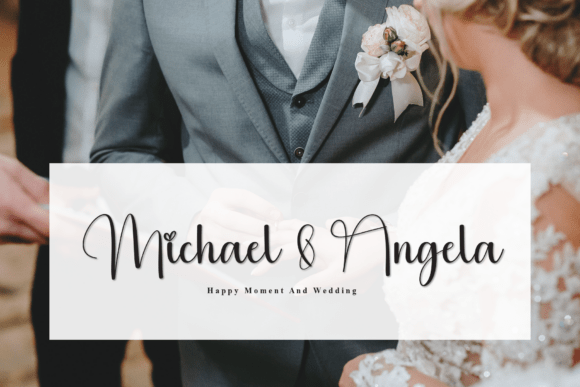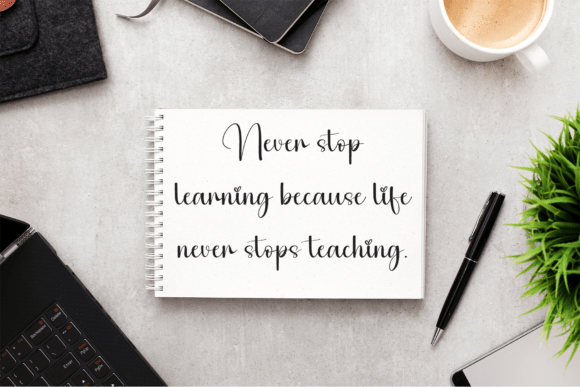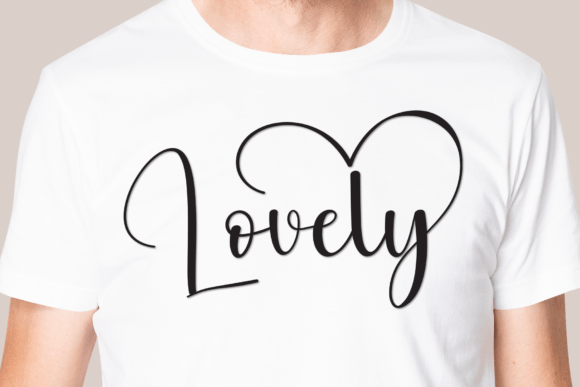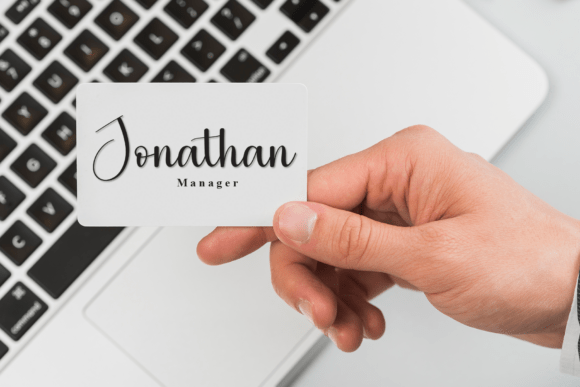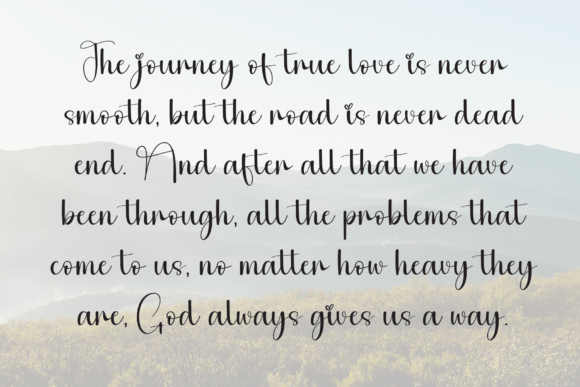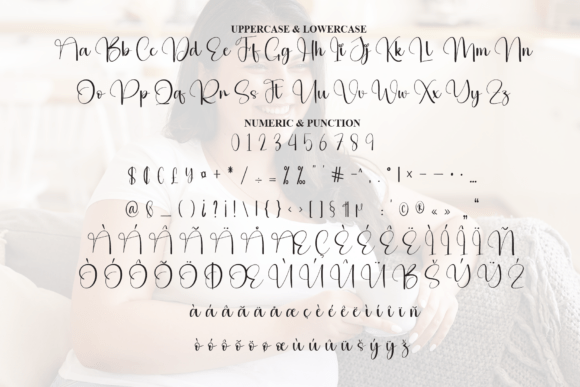
Introducing Chubby Font: The Sweet and Playful Script Font for Body Positivity and More
Are you tired of using the same old fonts for your designs and crafts? Look no further than Chubby Font, a sweet and playful script font that’s sure to add a touch of warmth and charm to any project. With its heart-shaped swashes and bubbly curves, Chubby Font is the perfect choice for body positivity messaging, love notes, greeting cards, and cozy branding.
What Makes Chubby Font So Special?
Chubby Font is more than just a font – it’s a statement. Its unique design features heart-shaped swashes and bubbly curves that give it a playful and whimsical feel. This font is all about embracing body positivity and self-love, making it the perfect choice for designers and crafters who want to spread a message of acceptance and inclusivity.
Perfect for Body Positivity Messaging
Body positivity is all about embracing and loving your body, regardless of shape or size. Chubby Font is the perfect way to express this message in your designs and crafts. Whether you’re creating posters, social media graphics, or merchandise, Chubby Font adds a touch of warmth and charm that’s sure to resonate with your audience.
With Chubby Font, you can create designs that are not only visually appealing but also empowering and uplifting. Imagine creating a poster with a bold, Chubby Font headline that reads “All Bodies Are Beautiful” or a social media graphic with a Chubby Font caption that says “Love Yourself Just the Way You Are”. The possibilities are endless, and the impact is sure to be profound.
Ideal for Love Notes, Greeting Cards, and Cozy Branding
But Chubby Font isn’t just limited to body positivity messaging. Its playful and whimsical design makes it perfect for a wide range of applications, including love notes, greeting cards, and cozy branding.
Imagine creating a set of love note cards with Chubby Font headings that read “Be Mine” or “I Love You”. Or, picture a cozy branding campaign for a bakery or cafe that features Chubby Font signage and packaging. The warm and inviting feel of Chubby Font is sure to make your designs and crafts stand out and leave a lasting impression.
Adding Warmth and Charm to Your Designs
So, what sets Chubby Font apart from other fonts? The answer lies in its unique design, which adds a touch of warmth and charm to every letter. Whether you’re creating digital designs or handmade crafts, Chubby Font is sure to bring a smile to your face and a sense of joy to your audience.
With Chubby Font, you can add a personal touch to your designs and crafts that’s hard to find with other fonts. Its playful and whimsical feel makes it perfect for creating unique and eye-catching designs that stand out from the crowd.
Tips for Using Chubby Font
Here are a few tips for using Chubby Font in your designs and crafts:
- Use Chubby Font as a headline font to add a touch of whimsy and playfulness to your designs.
- Pair Chubby Font with a simpler font for body text to create a striking contrast.
- Use Chubby Font to create custom illustrations, such as hand-drawn quotes or phrases.
In conclusion, Chubby Font is a sweet and playful script font that’s perfect for designers and crafters who want to add a touch of warmth and charm to their projects. With its heart-shaped swashes and bubbly curves, Chubby Font is ideal for body positivity messaging, love notes, greeting cards, and cozy branding.
Whether you’re creating digital designs or handmade crafts, Chubby Font is sure to bring a smile to your face and a sense of joy to your audience. So why not give Chubby Font a try and see the difference it can make in your designs and crafts?